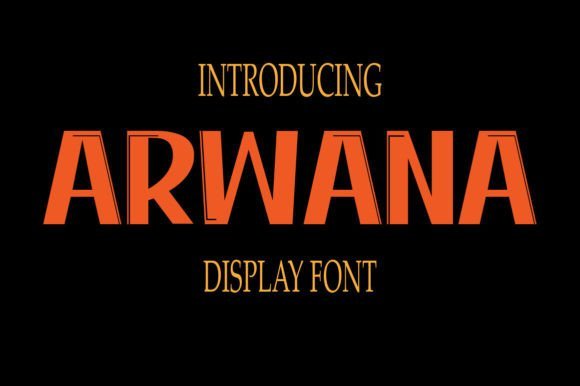
The Perfect Typography for Your Next Creative Project
Have you ever stared at a blank canvas, waiting for inspiration to strike? That’s exactly where I was when I stumbled upon the Arwana Display font. Its sleek, futuristic design and geometric corners sparked an idea for a bold new logo, and I knew I had to learn more about this versatile font.
Arwana Font is a game-changer for designers looking to add a touch of modernity to their projects. Created with a futuristic edge, this font is perfect for fashion, magazines, logos, branding, and more. Its clean lines and geometric corners make it an excellent choice for photography, quotes, blog headers, posters, advertisements, and even websites.
Whether you’re a seasoned designer or just starting out, Arwana Font is a valuable addition to your toolkit. Its adaptability and modern aesthetic make it an excellent choice for a wide range of creative projects, from fashion to branding and beyond.
Key Features of Arwana Font
- Unique Characteristics: The Arwana font features a unique blend of modern and traditional elements, with a distinctive flair for elegance and sophistication
Arwana Font Review
Overall, I think the Arwana font has some great qualities that make it a solid choice for designers.
- Unique and exotic design aesthetic: The Arwana font has a distinct, intricate feel that sets it apart from more common fonts.
- Good for headlines and titles: The font’s bold lines and unique character shapes make it well-suited for use in headings and titles.
- Available in a range of weights: The font comes in a variety of weights, from light to bold, which gives designers flexibility when choosing the right weight for their project.
- Not ideal for body text: The font’s intricate design can make it difficult to read at smaller sizes, which may limit its use in body text.
- May not be suitable for digital use: The font’s design may not be optimized for digital use, which could lead to pixelation or other issues.
Overall, I think the Arwana font is a great choice for designers who want to add a unique touch to their projects. While it may have some limitations, its unique design aesthetic and flexibility make it a solid option for designers looking to add some flair to their work.
Some common use cases for Arwana Font include:
– Creating a unique and stylish logo or branding element.
– Designing a luxury or high-end product packaging or marketing materials.
– Adding a touch of elegance to a wedding invitation or stationery.
Some tips for getting the most out of Arwana Font include:
– Experiment with different font sizes and styles to create a unique visual effect.
– Pair the font with other elegant or sophisticated fonts to create a cohesive design.
– Use the font in a limited color palette to emphasize its unique characteristics.
Alternatives to Arwana Font
Montserrat is a modern sans-serif font, perfect for creating clean and minimalistic designs. It’s ideal for use in logos, headings, and body text in digital and print media. Montserrat is more geometric and sleek compared to Arwana Font, making it suitable for modern and tech-related designs.
Lato is a clean and elegant sans-serif font, ideal for use in digital and print media. It’s perfect for creating a professional and sophisticated look in logos, headings, and body text. Lato is more rounded and humanistic compared to Arwana Font, making it suitable for use in designs that require a friendly and approachable tone.
Open Sans is a modern sans-serif font, designed for digital media. It’s highly legible and suitable for use in body text, headings, and logos. Open Sans is more open and friendly compared to Arwana Font, making it ideal for use in designs that require a clean and approachable tone.